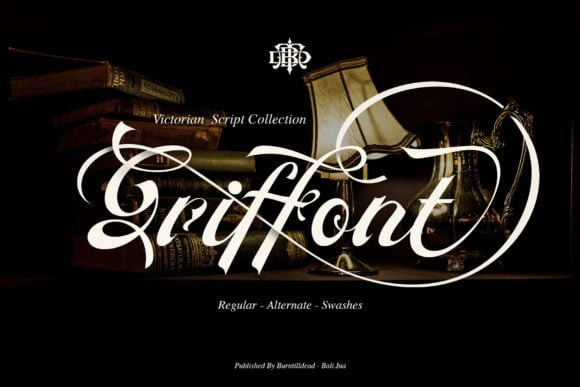
1. Griffont Font
Griffont is a victorian styled, handwritten font. Whether you’re looking for fonts for Instagram or calligraphy scripts for DIY projects, this font will turn any creative idea into a true piece of art!
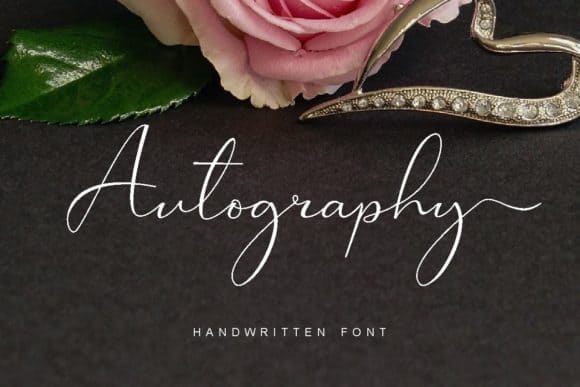
2. Autography Font
Autography is an enchanting handwritten font. This versatile script font has a wide spectrum of applications ranging from greeting cards to headlines. Autography is PUA encoded which means you can access all of the glyphs and swashes with ease!
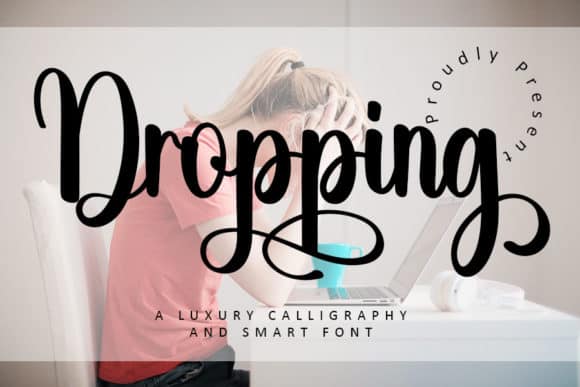
3. Dropping Font
Dropping is a chic, refined script font that emanates sophistication and elegance. Its stylish alternates and ligatures make this font the perfect match for any project.
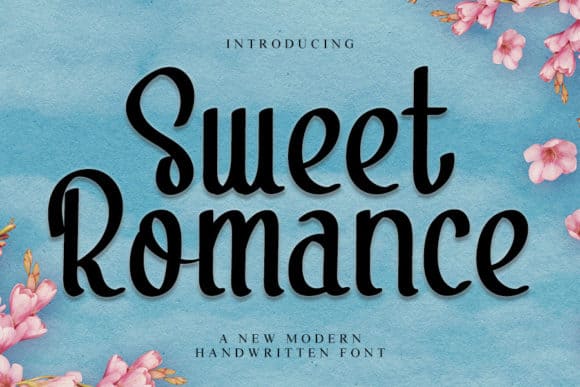
4. Sweet Romance Font
Sweet Romance is a flowing and graceful script font. Fall for its ravishing style and use it to create gorgeous wedding invitations, beautiful stationary art, eye-catching social media posts, and much more!
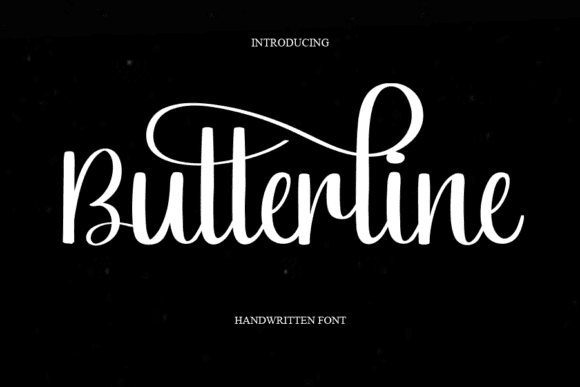
5. Butterline Font
Butterline is an exquisite handwritten font, masterfully designed to become a true favorite. It maintains its classy calligraphic influences while feeling contemporary and fresh. Fall in love with it and bring your projects to the highest levels!
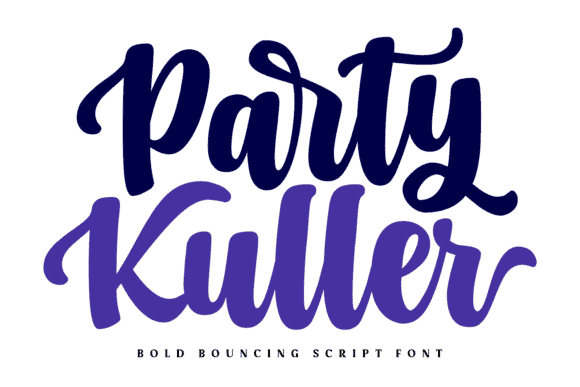
6. Party Kuller Font
Party Kuller is a lovely and timeless handwritten font. It is the best choice for creating eye catching logos, branding and quotes. This font is PUA encoded which means you can access all of the glyphs and swashes with ease!
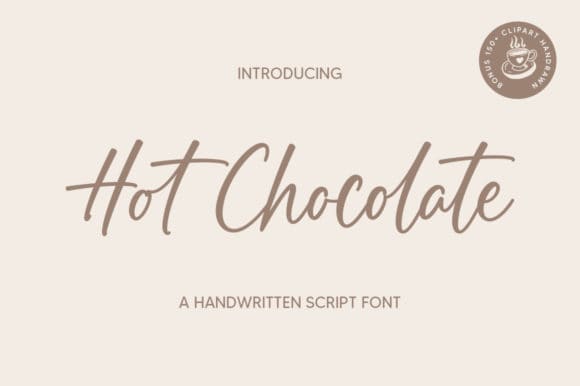
7. Hot Chocolate Font
Hot Chocolate feels equally charming and elegant. It looks stunning on wedding invitations, thank you cards, quotes, greeting cards, logos, business cards and every other design which needs a handwritten touch.
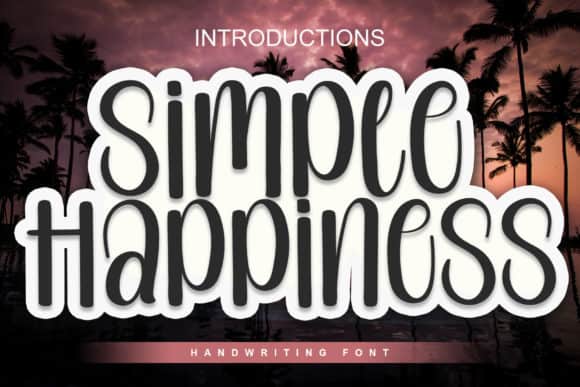
8. Simple Happiness Font
Simple Happiness is a stylish and trendy script font. It looks stunning on wedding invitations, thank you cards, quotes, greeting cards, logos, business cards and every other design which needs a customized touch.
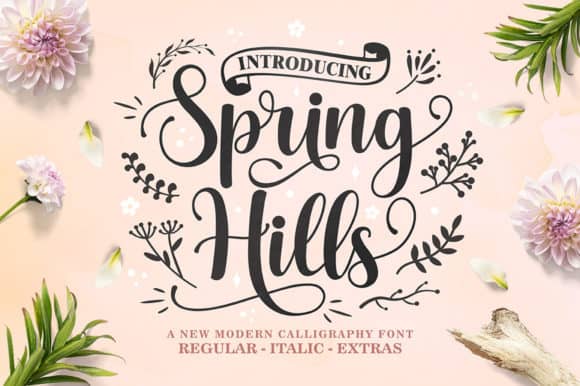
9. Spring Hills Font
Spring Hills is a romantic script font. This font is neatly crafted and highly detailed. Whatever the topic, this font will be a wonderful asset to your font library, as it has the potential to enhance any creation. Spring Hills is PUA encoded which means you can access all of the glyphs and swashes with ease!
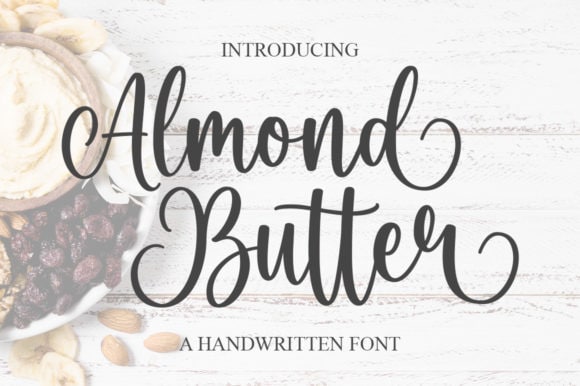
10. Almond Butter Font
Almond Butter is a delicate, elegant and flowing handwritten font. It has beautiful and well balanced characters and as a result, it matches a wide pool of designs. Add it to your most creative ideas and notice how it makes them come alive!